Top 20+ Best Script Fonts For Design in 2023
Script fonts combine the elegance of classical calligraphy and handwriting. Script fonts Suitable for Logo, badges, greeting cards, quotes, posters, branding, name card, stationary, design title, art quote, typography, art, modern envelope lettering or book design, happening style like hand-drawn design or watercolor design theme, or any purpose to make our art/design project look pretty and trendy. Before designing or implementing any informational content, you must first choose your font. If you are looking for a more natural feel with casual touch, a good script font is your choice. Here are a few famous examples to get you started.
Albrighton - Script Font
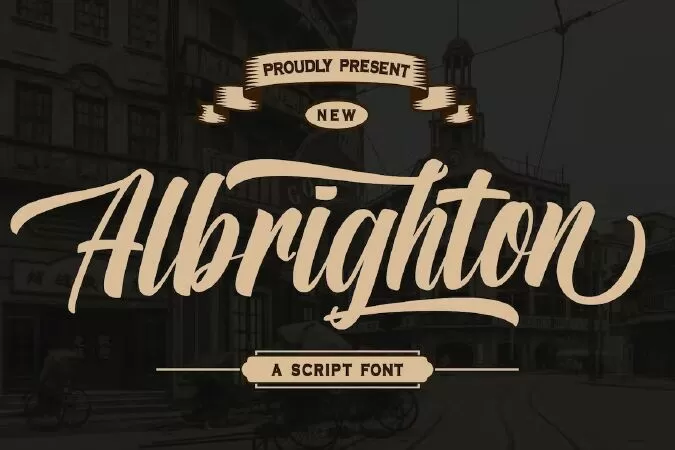
Albrighton is an incredibly distinct, delicate and timeless handwritten font.
It looks stunning on wedding invitations, thank you cards, quotes, greeting cards, logos, business cards and every other design which needs a handwritten touch.
Amantea Script Font
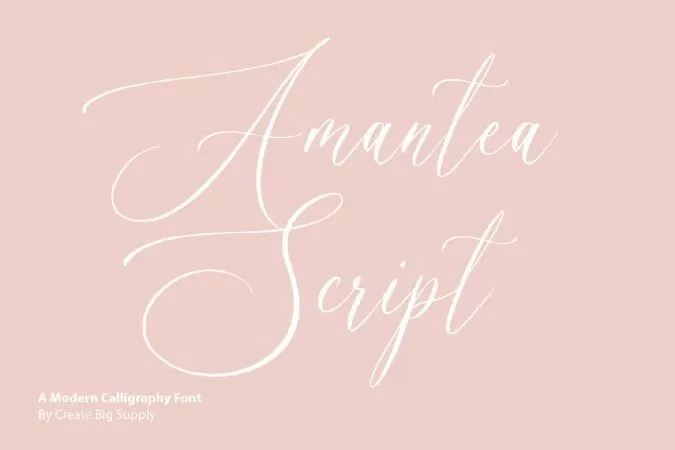
Amantea Script is a thin and graceful script font. Be captivated by its beautiful style and use it to create gorgeous wedding invitations, beautiful stationary art, engaging social media posts, and more! This font is PUA encoded which means you can access all the amazing glyphs and ligatures with ease
Erica Script Font
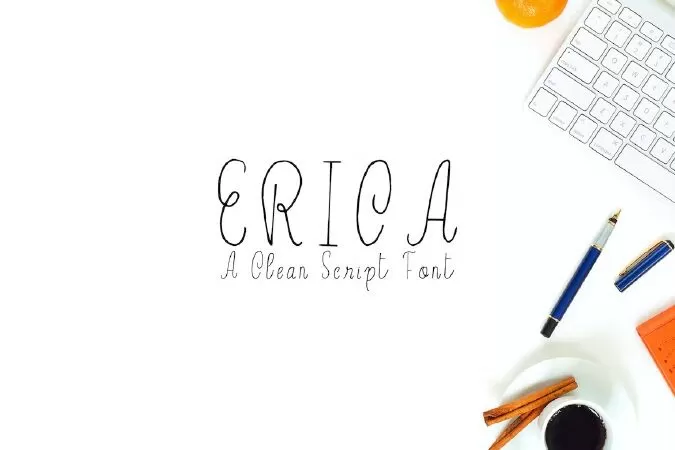
Erica is a beautiful handwritten font which contains 1 weight and that is specifically designed for minimal projects. It looks impressive for branding, websites, clean designs, logos, headlines, banners and templates etc. It looks gorgeous in all caps with a wide-set spacing if you want to try a classy look, or beautiful on its own in capital and lowercase letters for something completely timeless.
Esllieba Script Font
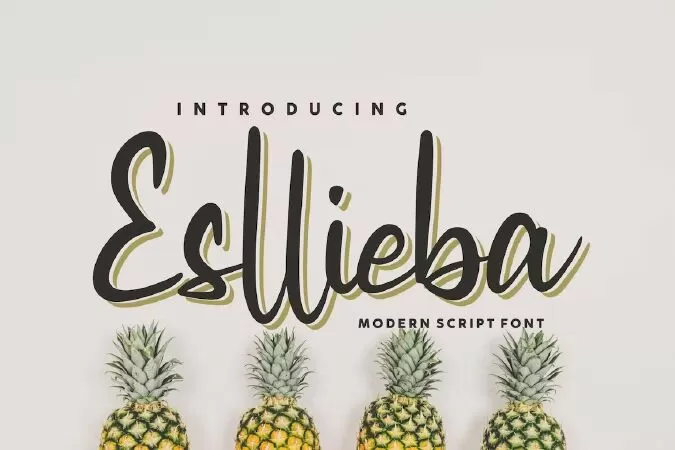
Esllieba Script Font - is a new font that is authentic and suitable for many of your visual needs, like for invitation, greeting cards, branding materials, business cards, quotes, posters, and more!
Belaris - script font
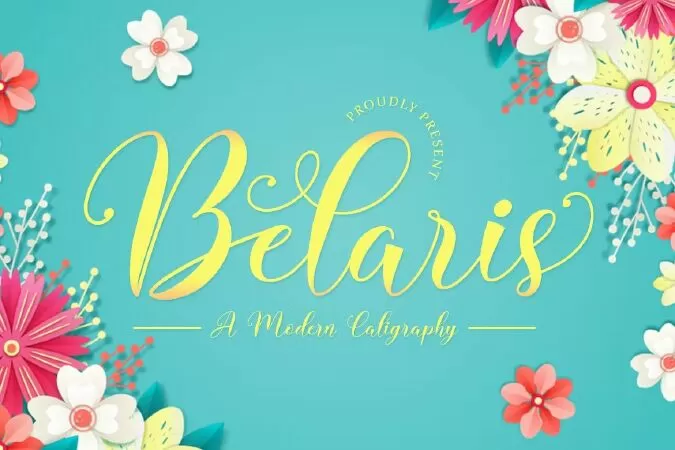
Belaris -script font hand lettering
Belaris is a modern calligraphy font. It looks gorgeous on wedding invitations, thank you cards, quotes, greeting cards, logos, business cards, branding, homeware designs, product packaging, mugs, posters, shopping bags, t-shirts, book covers, invitation cards, greeting cards, label, photography, watermark, special events and every other design which needs a handwritten touch.
- Ligatures and Alternative Style Stylistic Set
This font is PUA encoded which means you can access all of the glyphs and swashes with ease! It features a varying baseline, smooth lines, gorgeous glyphs and stunning alternates.